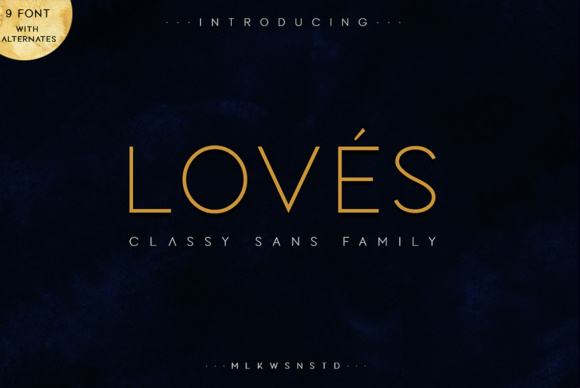
Introducing Loves Font, a stunning sans serif family created by the talented MLKWSN studio. With its beautiful and diverse styles, this font collection is the ultimate choice for designers seeking to create truly unique and captivating designs. Whether you're looking to add a touch of elegance or a modern twist to your projects, Loves Font has got you covered.
Immerse yourself in the world of timeless beauty with the Loves Font family. This collection offers a classic yet modern style that effortlessly elevates any design it graces. The precision and attention to detail poured into its creation ensure that every curve and line exudes sophistication and refinement.
When you choose Loves Font, you unlock a world of endless possibilities. With an array of styles at your fingertips, you have the power to breathe life into your designs like never before. From sleek and minimalist to bold and expressive, this font family allows you to effortlessly convey the exact mood and message you desire.
Picture this: a sleek invitation to a high-profile event, adorned with the sleek and elegant Loves Font. The first glimpse of this masterpiece will leave your audience captivated, eagerly anticipating the unforgettable experience that awaits them. Or imagine a striking logo that effortlessly communicates your brand's modernity and professionalism – Loves Font is the secret ingredient that will make it unforgettable.
But Loves Font doesn't stop at invitations and logos. Its versatility extends to a wide range of design projects. From eye-catching social media graphics to captivating website headers, this font family takes your creations from ordinary to extraordinary. Its clean and legible appearance ensures that your message is conveyed with utmost clarity, leaving a lasting impression on anyone who encounters your work.
With Loves Font, you're not just investing in a font collection – you're investing in the power to evoke emotions and create unforgettable experiences. Let your designs speak volumes with the timeless beauty and modern allure of Loves Font.